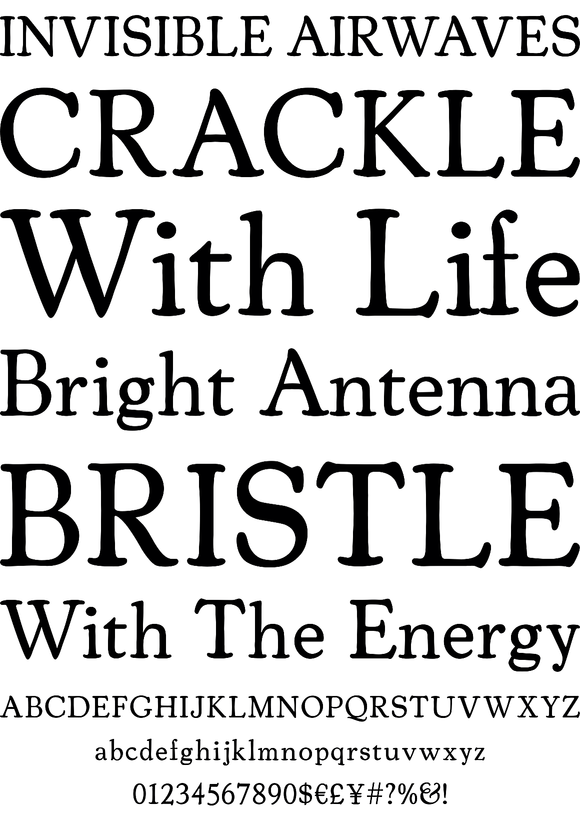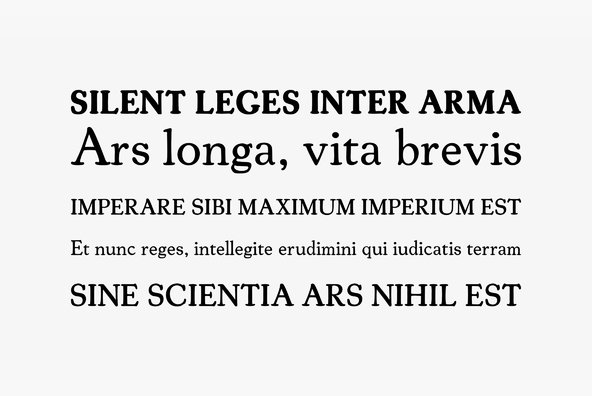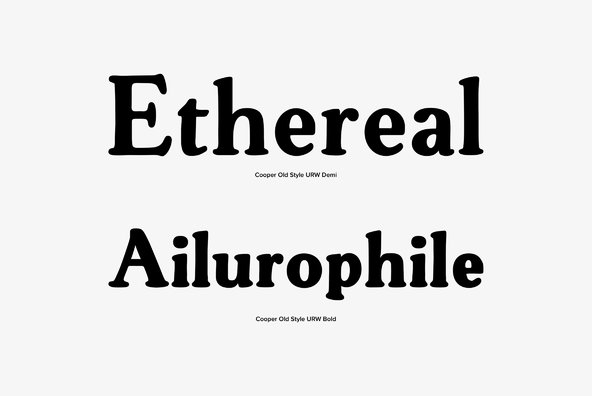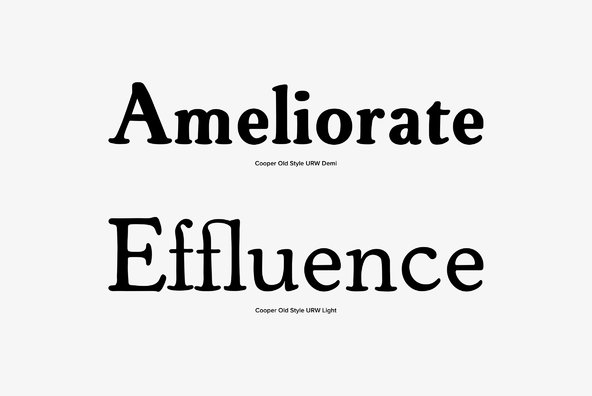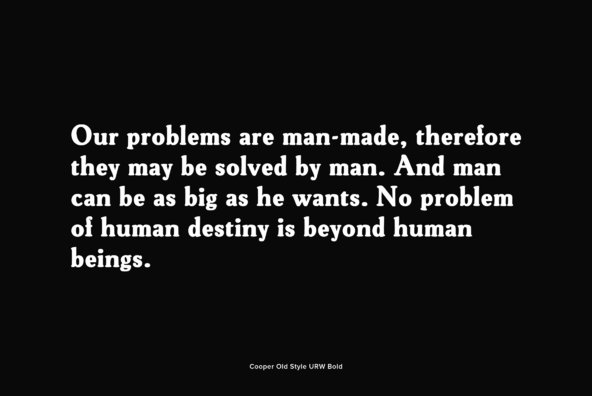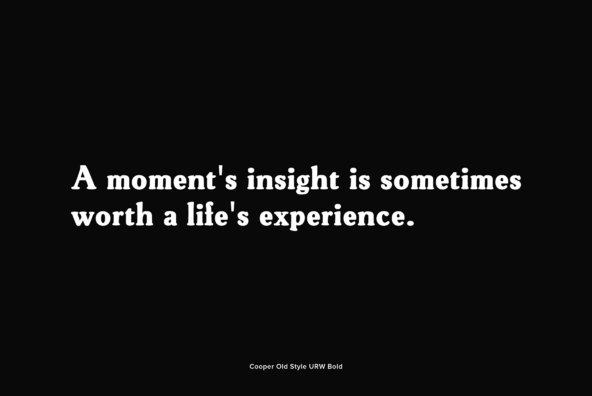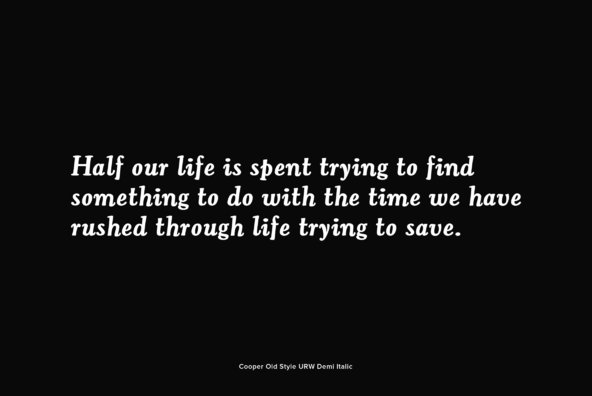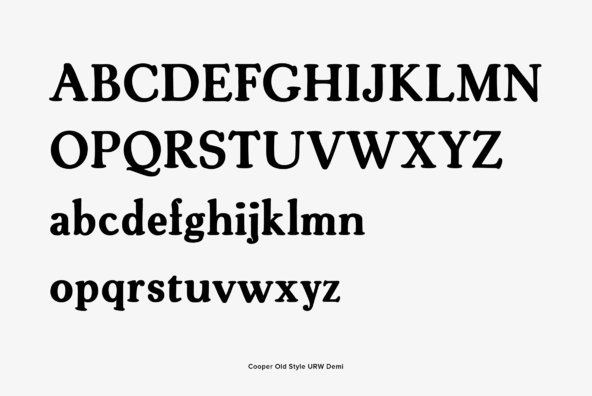
Cooper Old Style was originally designed by Oswald Bruce Cooper in 1919-24. It is the older, but lesser known sibling of Cooper Black. Cooper was a student of Frederic W. Goudy, and is evident in the very organic forms visible in Cooper's types....
Cooper Old Style was originally designed by Oswald Bruce Cooper in 1919-24. It is the older, but lesser known sibling of Cooper Black. Cooper was a student of Frederic W. Goudy, and is evident in the very organic forms visible in Cooper's types.